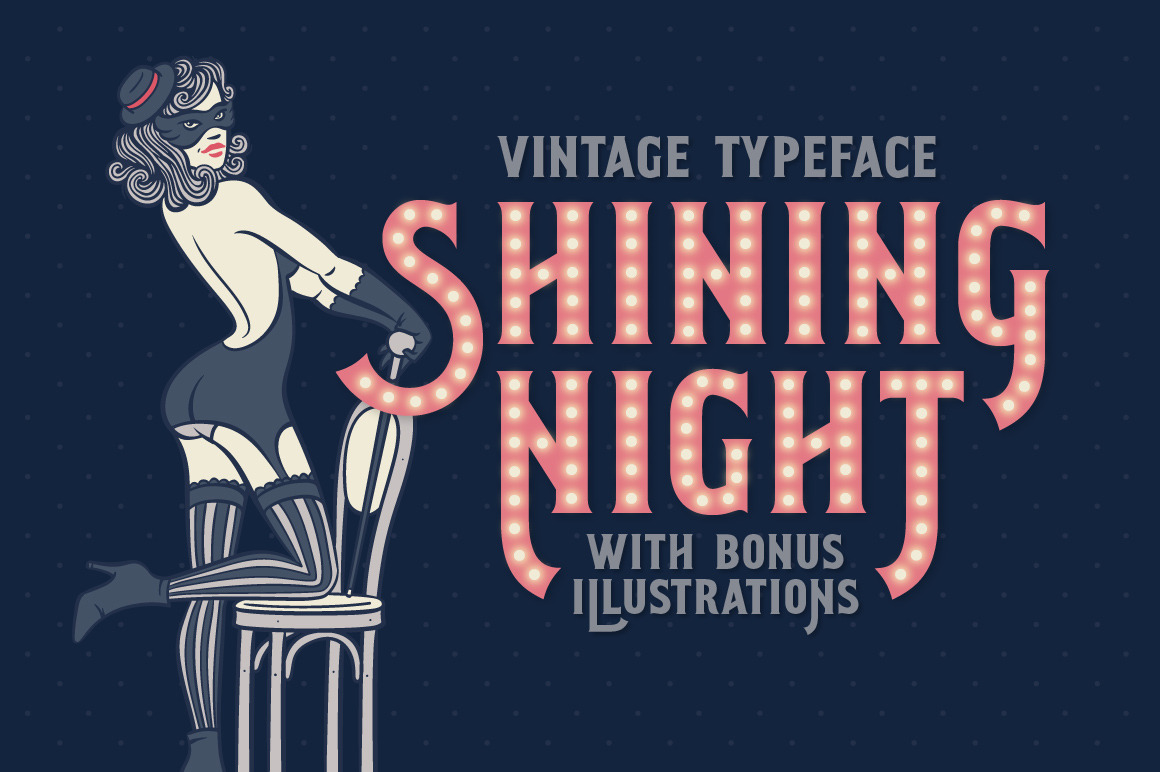
Shining Night font + bonus
Hi! Introducing a vintage style font, with a beautiful cabaret female dancer illustration. This font has additional font file with round dots over the base glyphs, that immitates a lamp lights of a real cabaret signboard.
Sweet style set!! I love the different fonts for letters, letters with holes, and light bulbs. This allows for a lot of creativity. Also, the different (swoopie) capitals vs. the lower-case letters is awesome. Side note: If you make a black light bulb layer, and then you make a white bulb layer, and blur the layer and change the blending modes, you can create the appearance of the light-bulb socket. (If you want one to be empty, or not lit.) Curtain and Pinup Girl are also very cool I'm sure I'll use them for something.